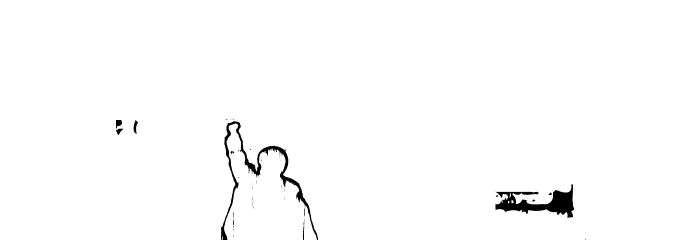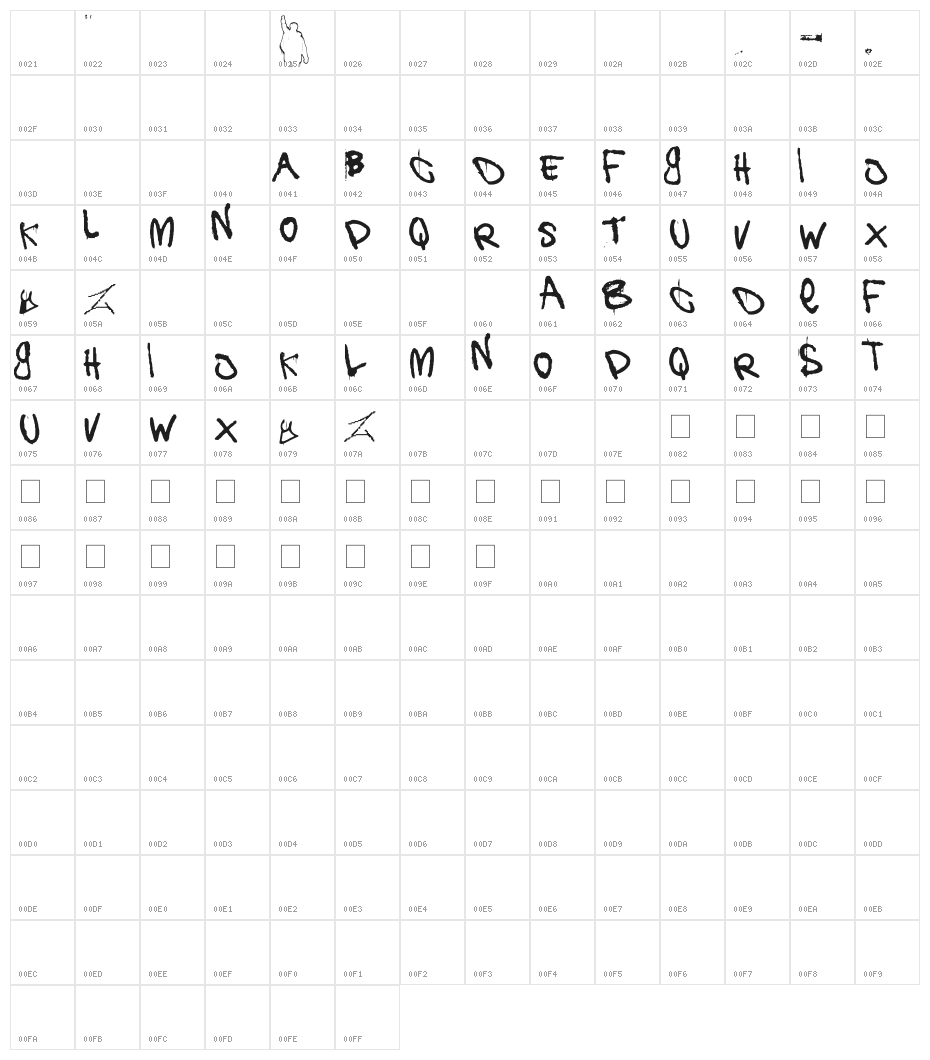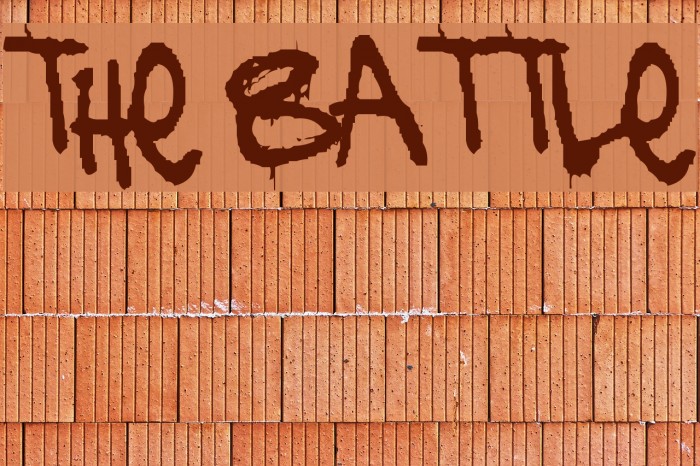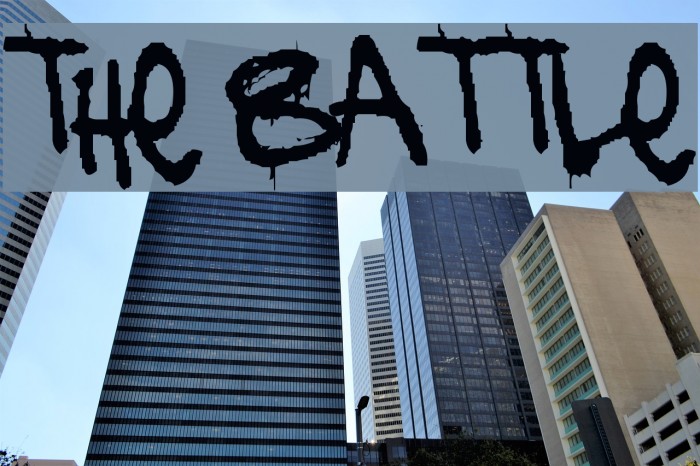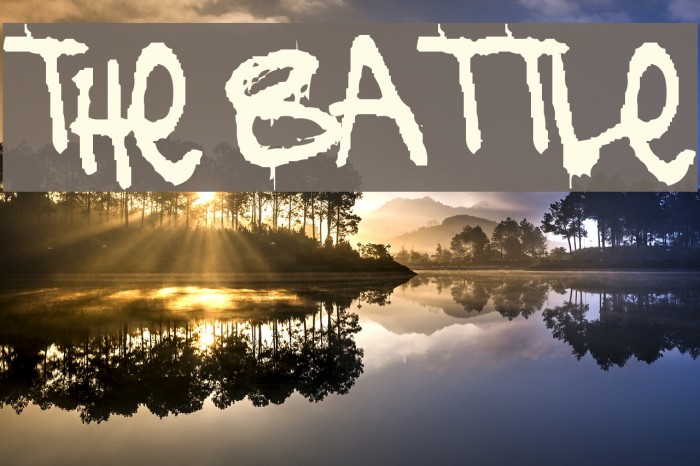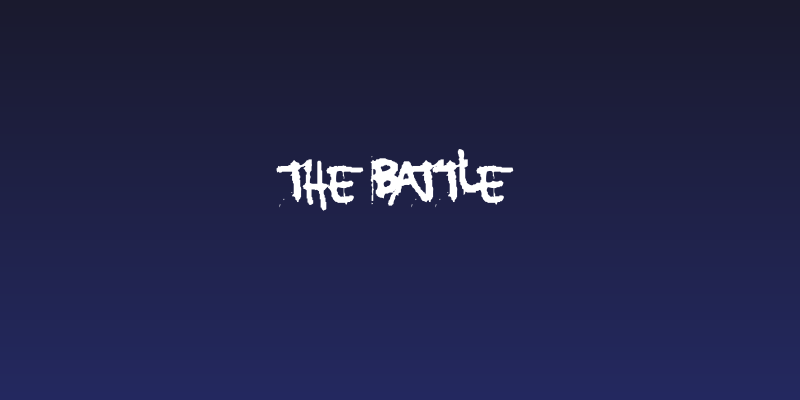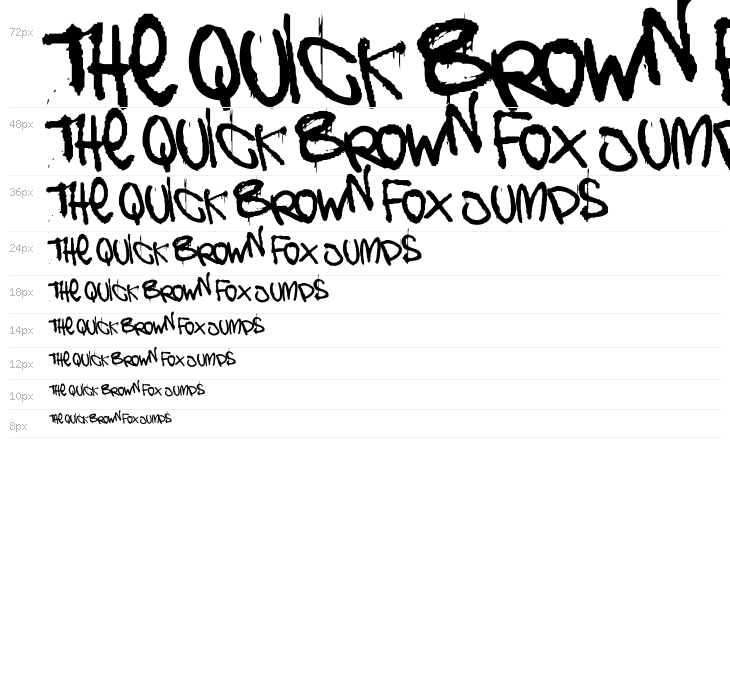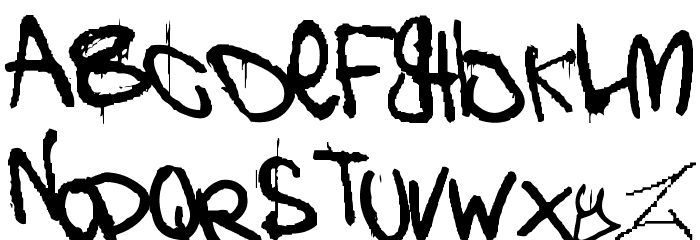
the battle Font
the battle Description
This font features a bold, graffiti-inspired style with a rough, hand-drawn appearance. The letters are irregular and dynamic, conveying a sense of movement and energy. The strokes are thick and uneven, with a raw, edgy feel that suggests urban art and street culture. The uppercase and lowercase letters maintain a consistent aesthetic, with exaggerated curves and sharp angles. The numbers and special characters follow the same design principles, adding to the cohesive look of the font. This font is ideal for projects that require a bold, rebellious statement.
| Overall Style | Urban, Edgy, Graffiti |
| Use Case | Headlines, Posters, Logos |
| Proposed Projects | Ideal for street art designs, music album covers, urban-themed posters, and edgy branding projects. |